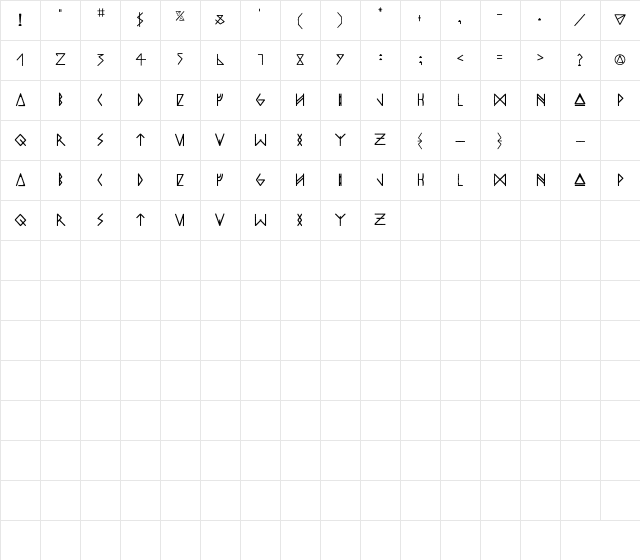
ODINS SPEAR Regular
Design Context for ODINS SPEAR
ODINS SPEAR is a composed and adaptable typeface that performs quietly and consistently across a wide range of design contexts.
Pro Tip: Use ODINS SPEAR in both headline and body roles to test its range before committing to a single application.